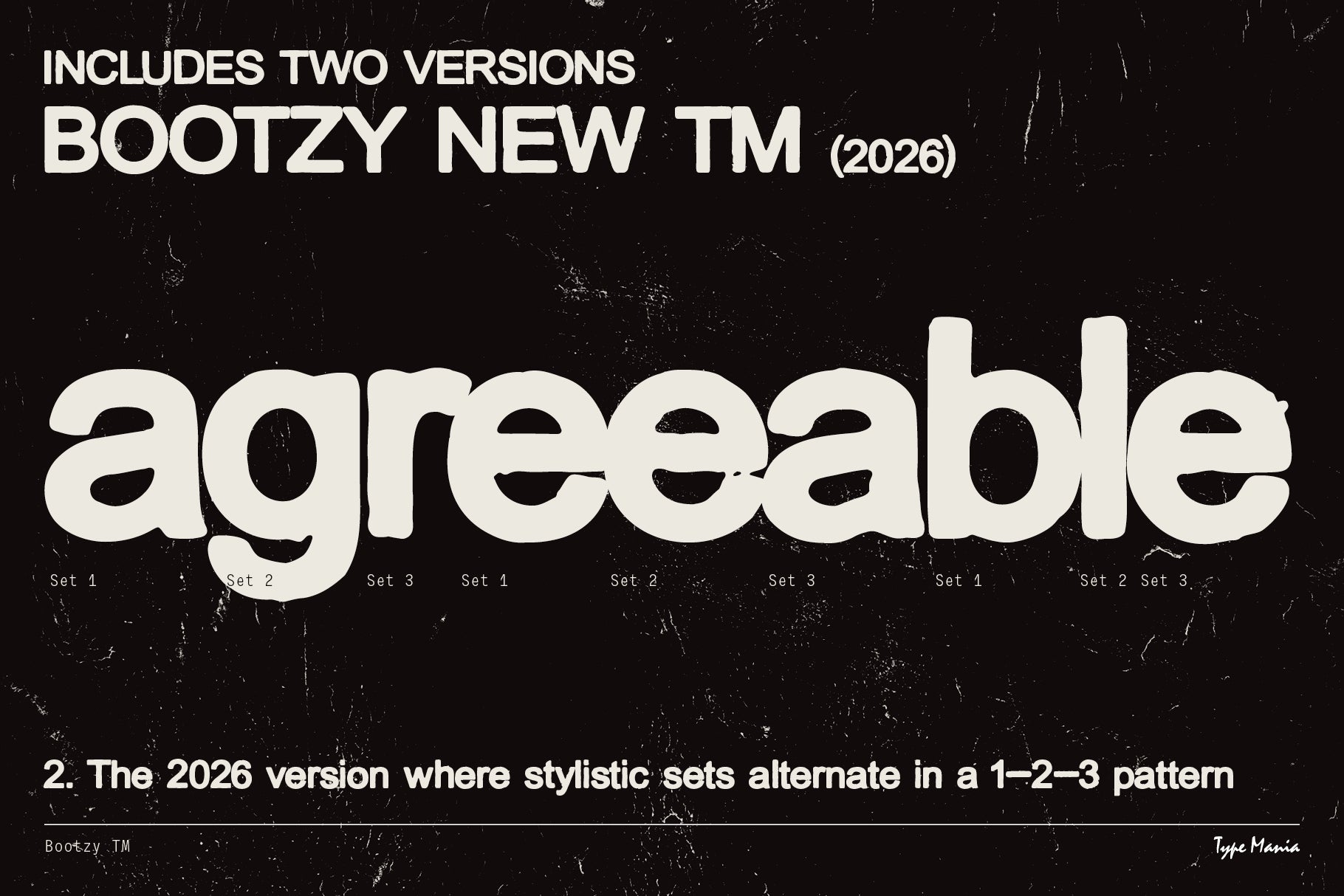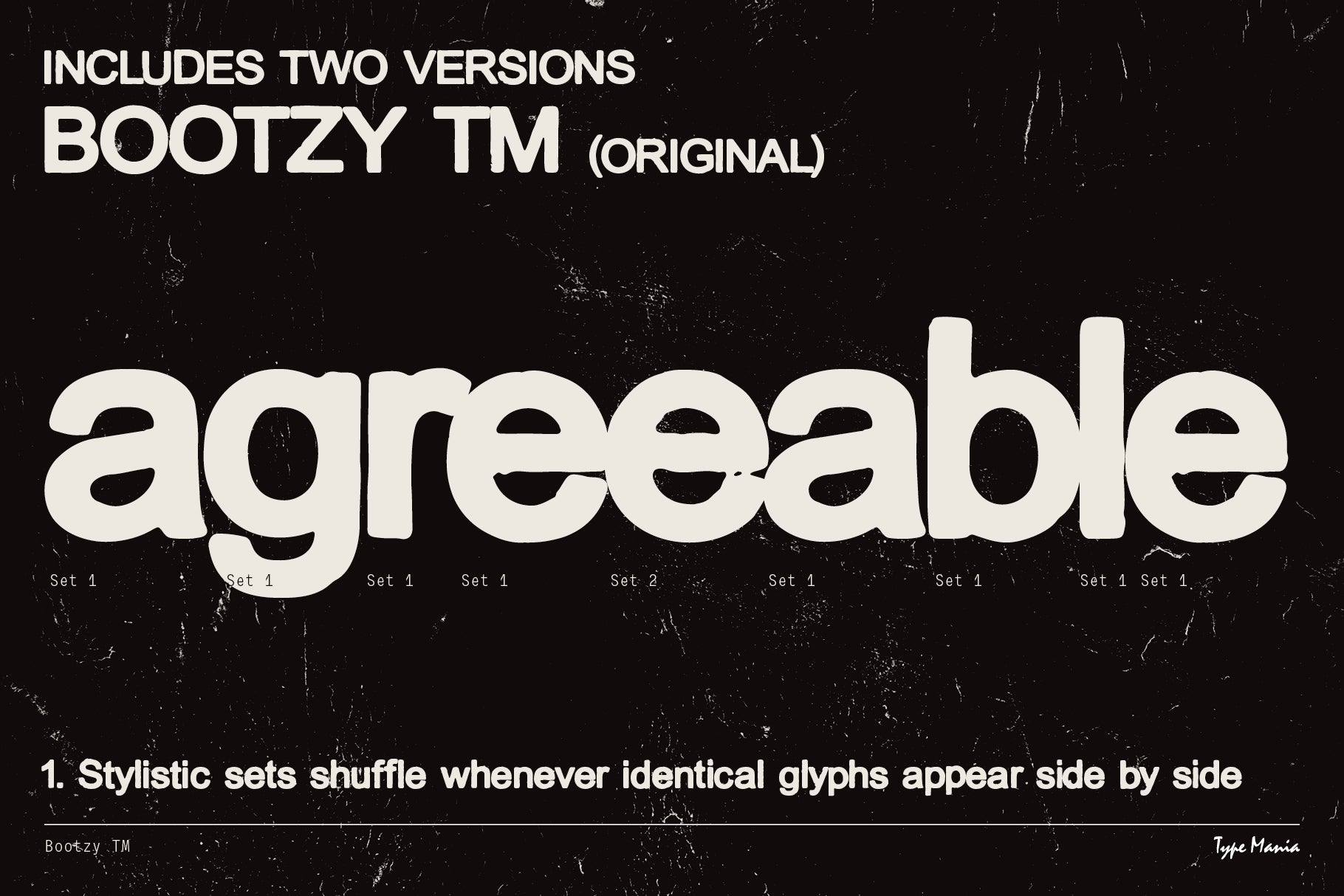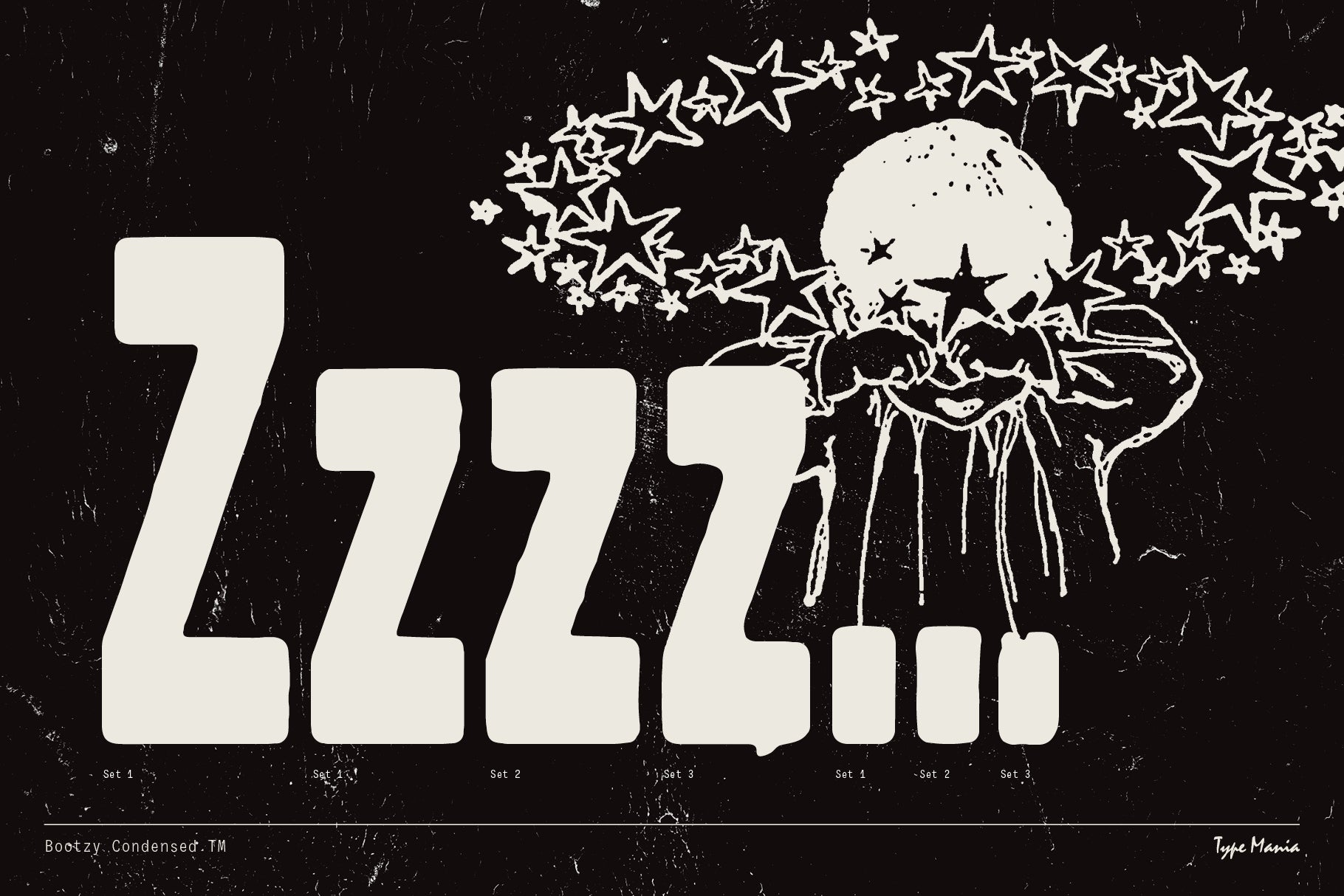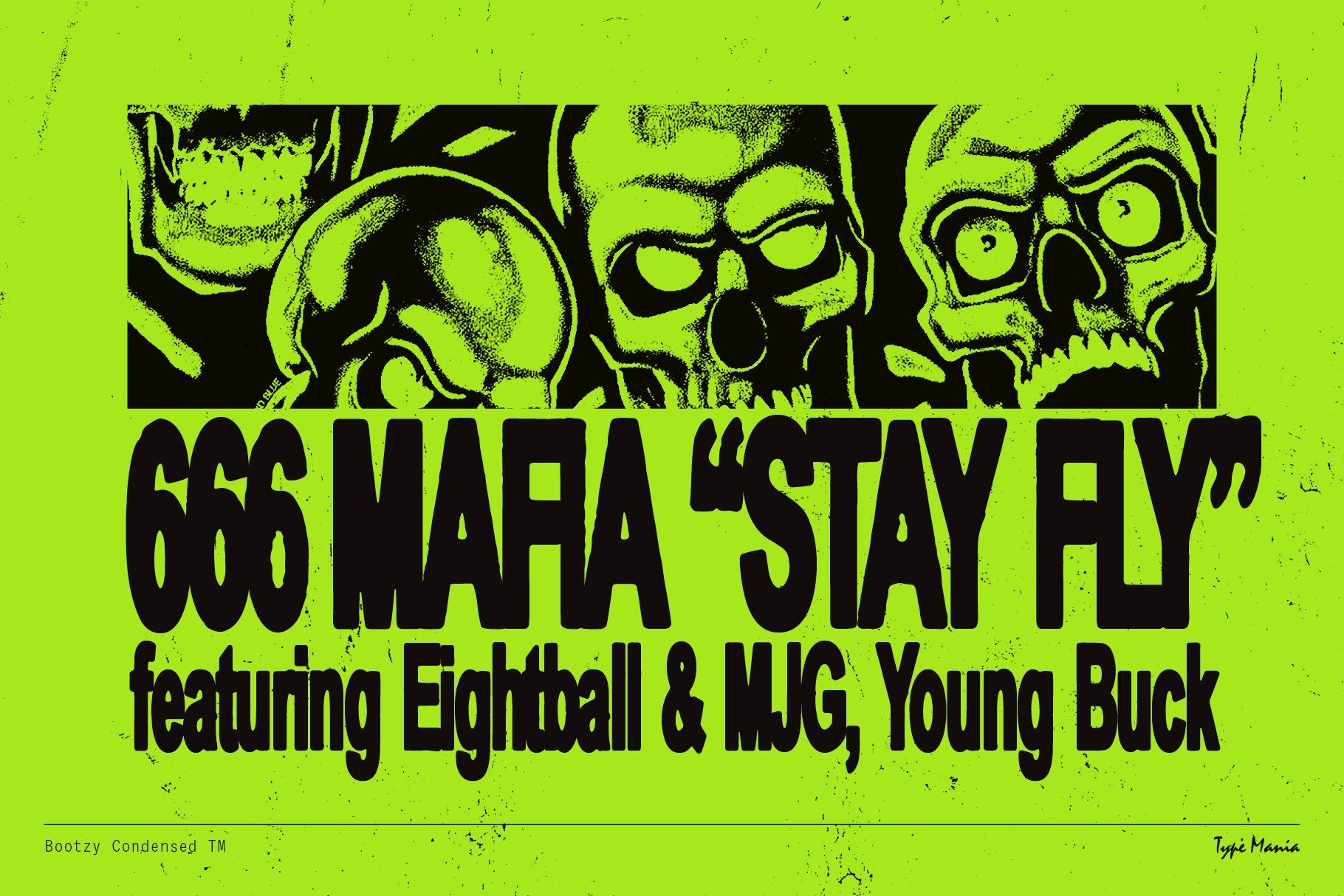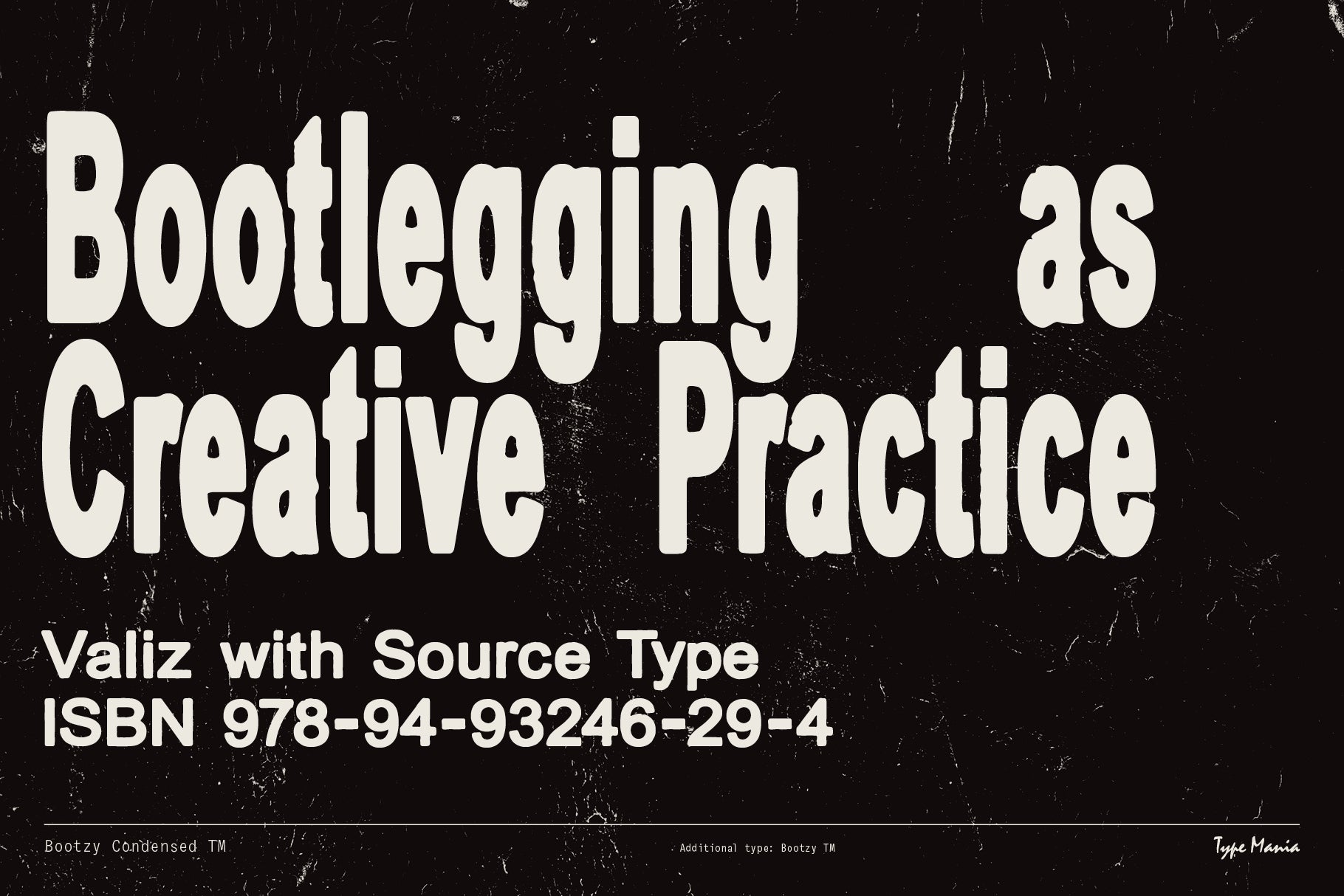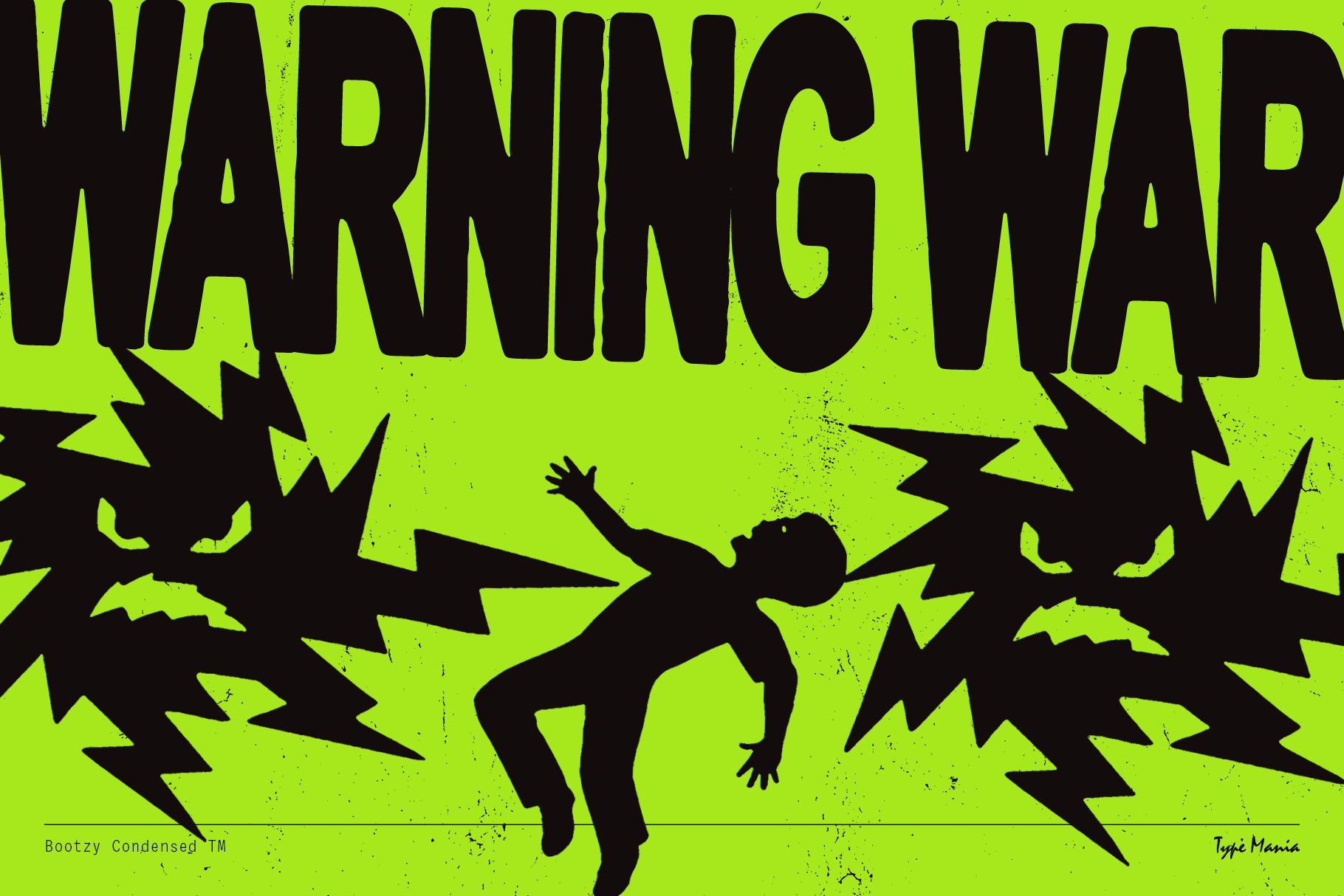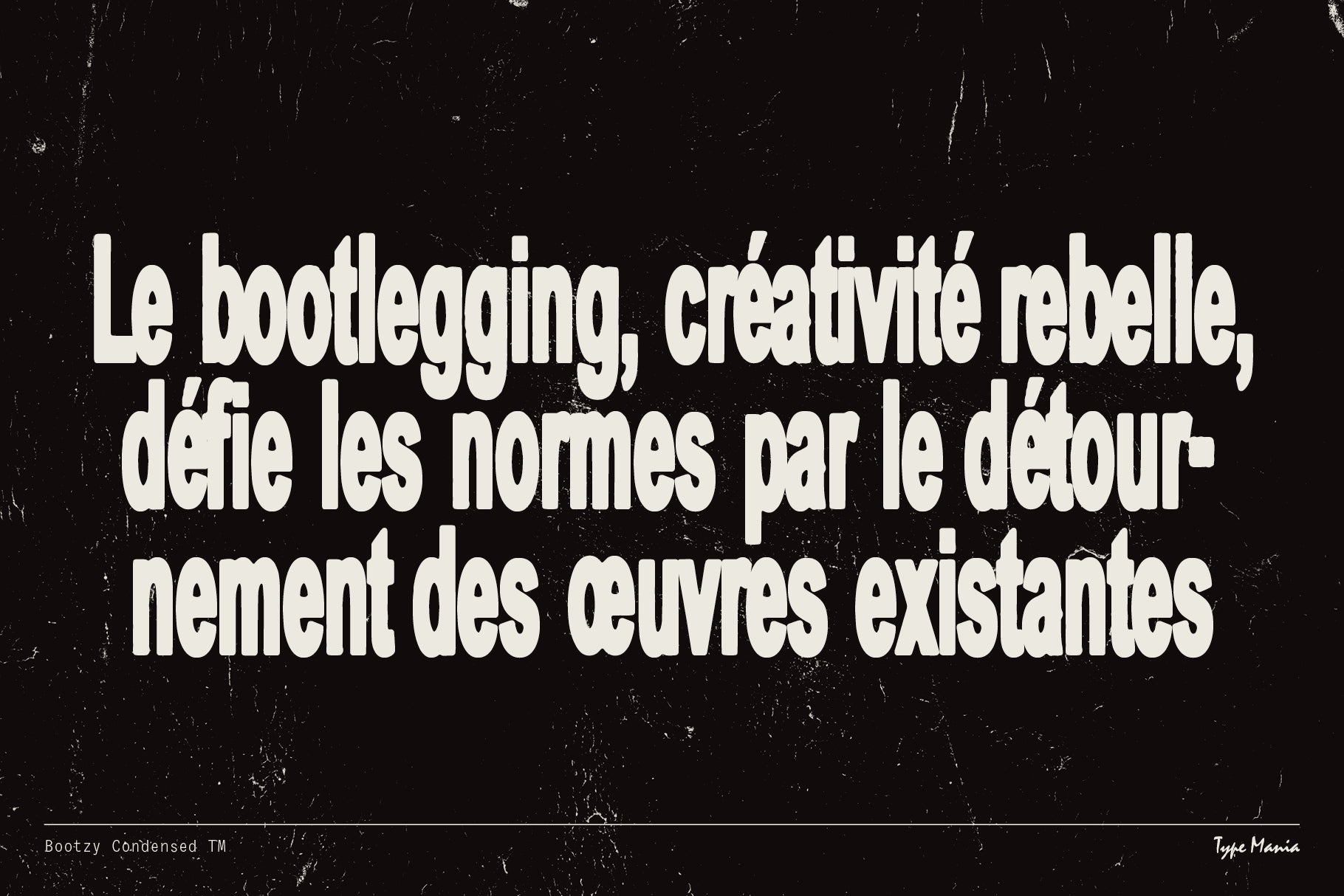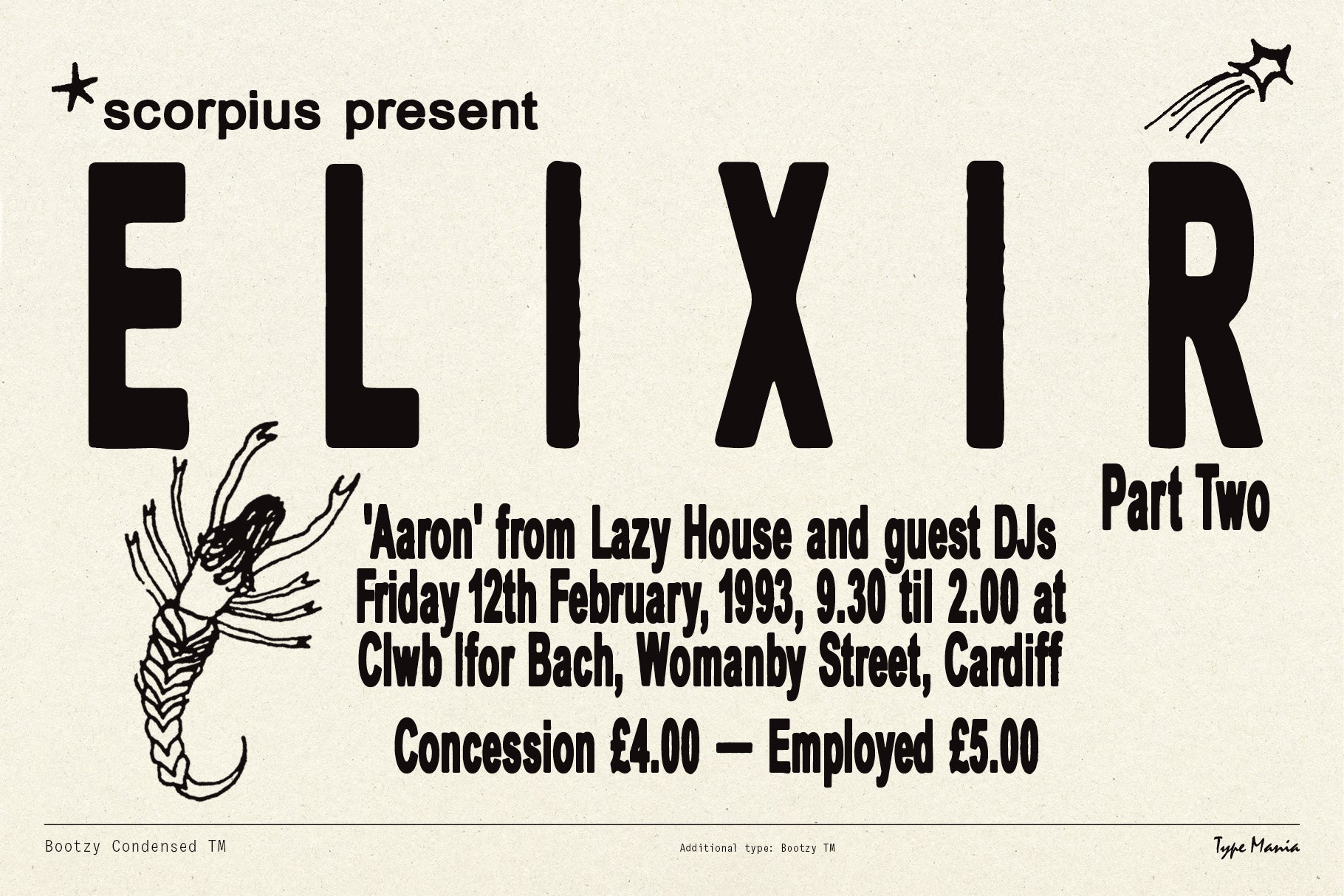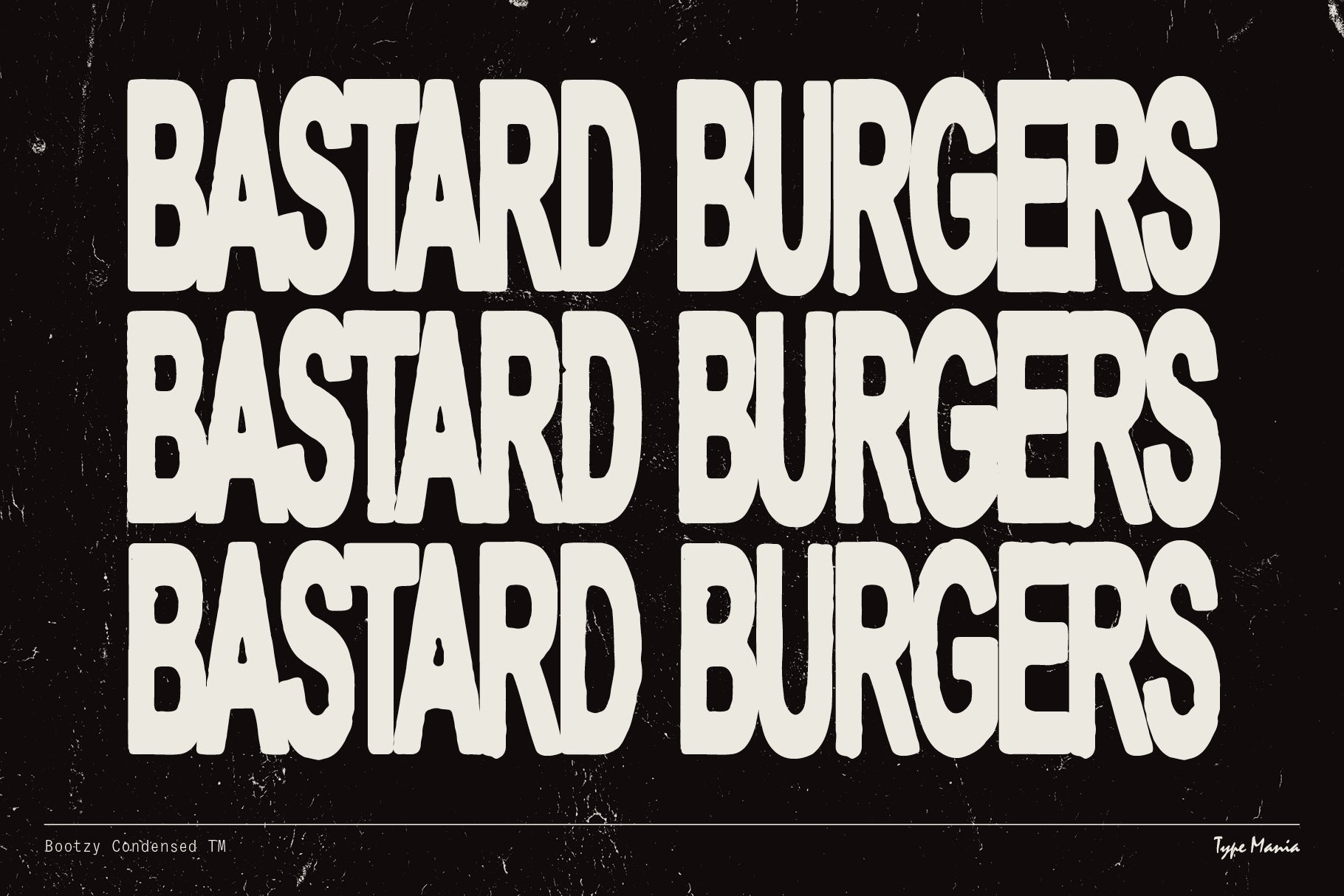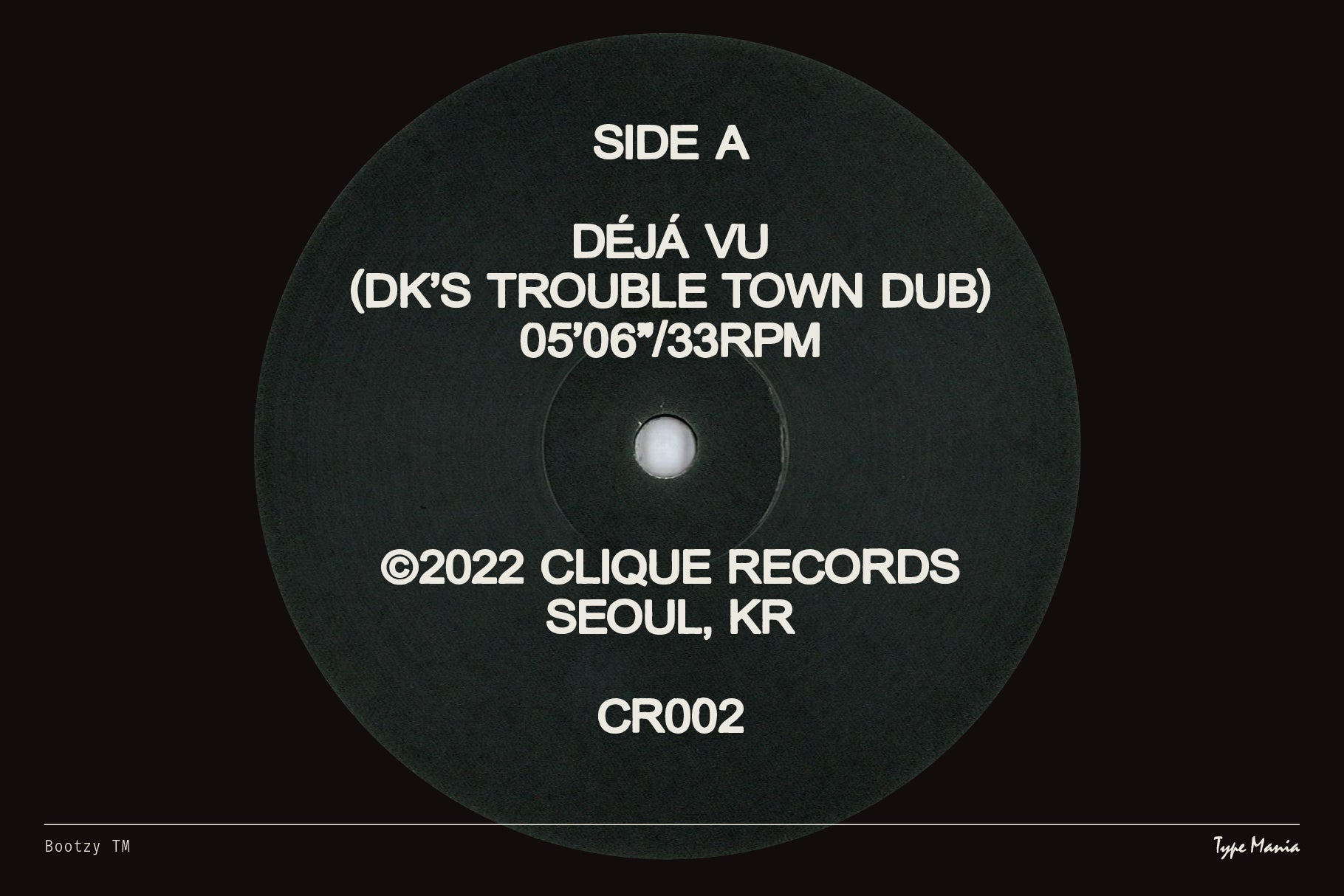
⭐ Bootzy TM & Bootzy Condensed TM ⭐ Bundle ⭐
Bootzy TM & Bootzy Condensed, bundled together at an affordable price. Includes the original versions as well as the 2026 versions. So 4 fonts in total.
Bootzy TM
A tough sans serif designed to elevate your flyers, album covers, t-shirt designs; what have you. With three stylistic sets, the glyphs shuffle automatically, infusing your design with character and texture.
Bootzy Condensed TM
A rugged display sans serif born from and for the creative underground. Inspired by the DIY ethos of bootlegging, this font is perfect for flyers, zines, and rebellious expressions all over.
• 3 stylistic sets in all versions
• Includes two versions of each font: 1. Stylistic sets shuffle whenever identical glyphs appear side by side, 2. A new version where stylistic sets alternate in a 1–2–3 pattern, when the Contextual Alternates is turned on.